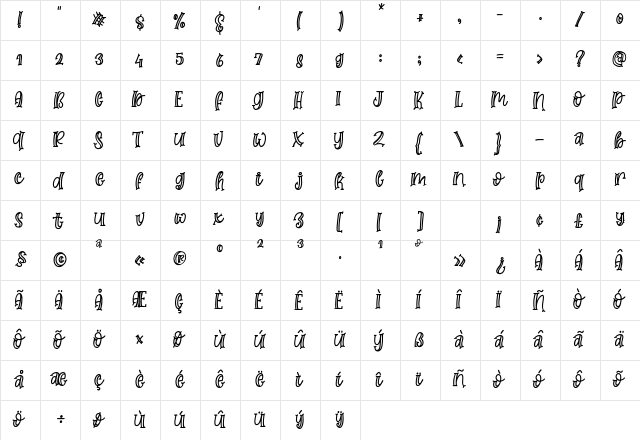
Moms Crafter Regular
Design Context for Moms Crafter Typeface
Moms Crafter is a composed and adaptable typeface that performs quietly and consistently across a wide range of design contexts.